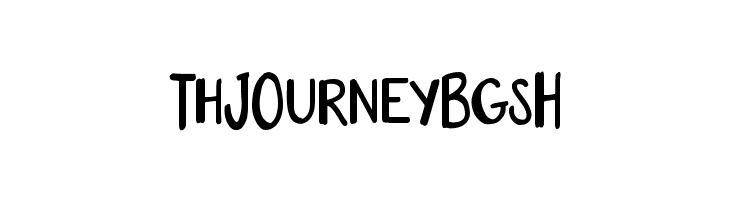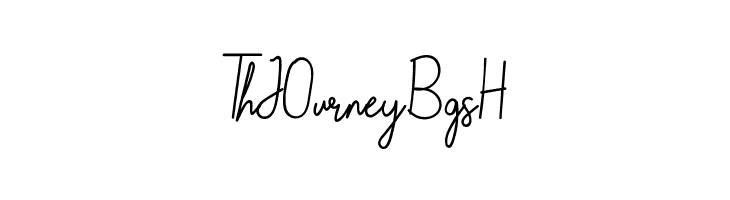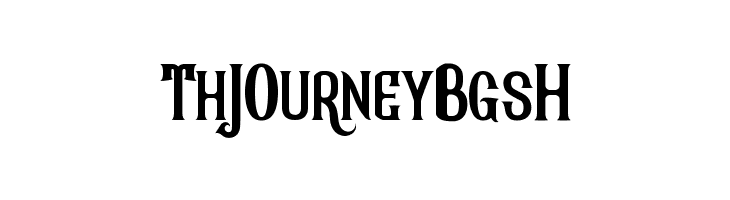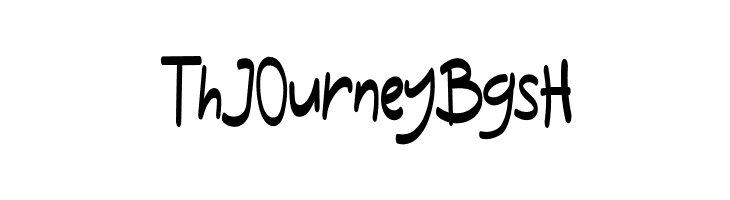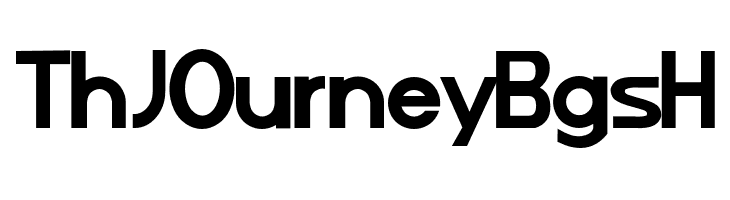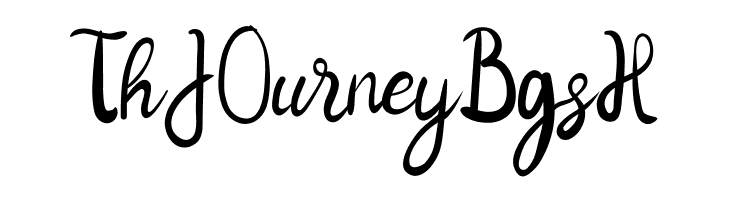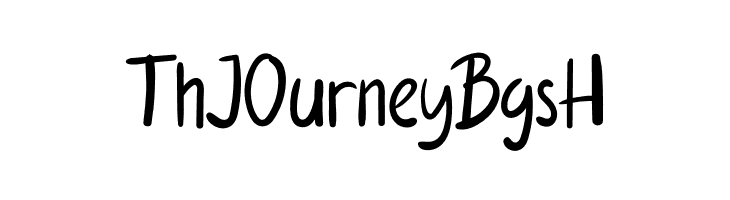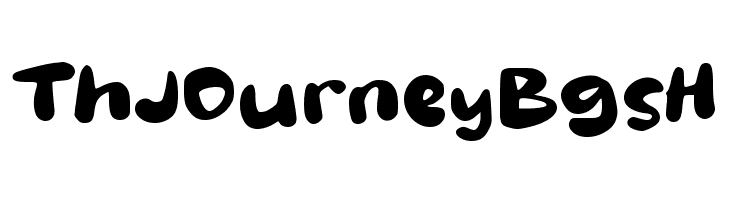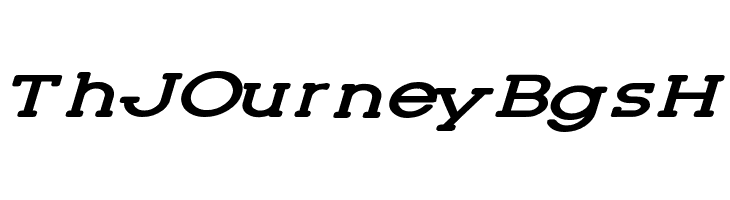
A playful, hand-drawn style font with rounded edges and consistent stroke width.
A playful handwritten font with fluid, slightly irregular strokes.
A bold, decorative font with a vintage flair and unique serifs.
A playful, hand-drawn font with a casual and friendly vibe.
A playful, handwritten font with a casual and friendly appearance.
A bold, modern font with geometric influences and strong visual impact.
A playful, handwritten script font with bold uppercase and fluid lowercase letters.
A playful, handwritten font with smooth, flowing lines and a casual style.
A playful, bold font with rounded, irregular strokes for a whimsical look.
An elegant italic font with a modern yet classic style.